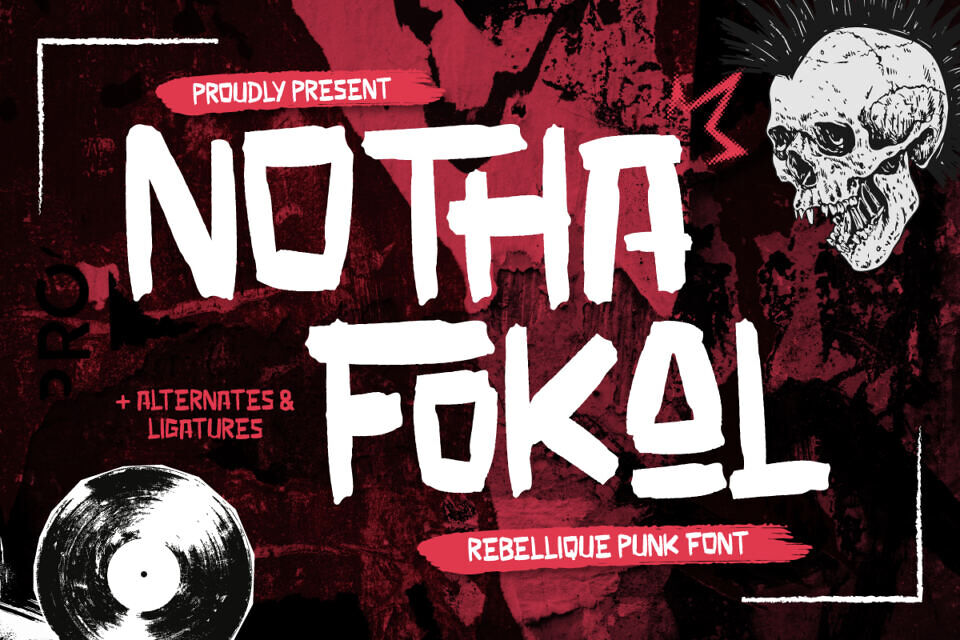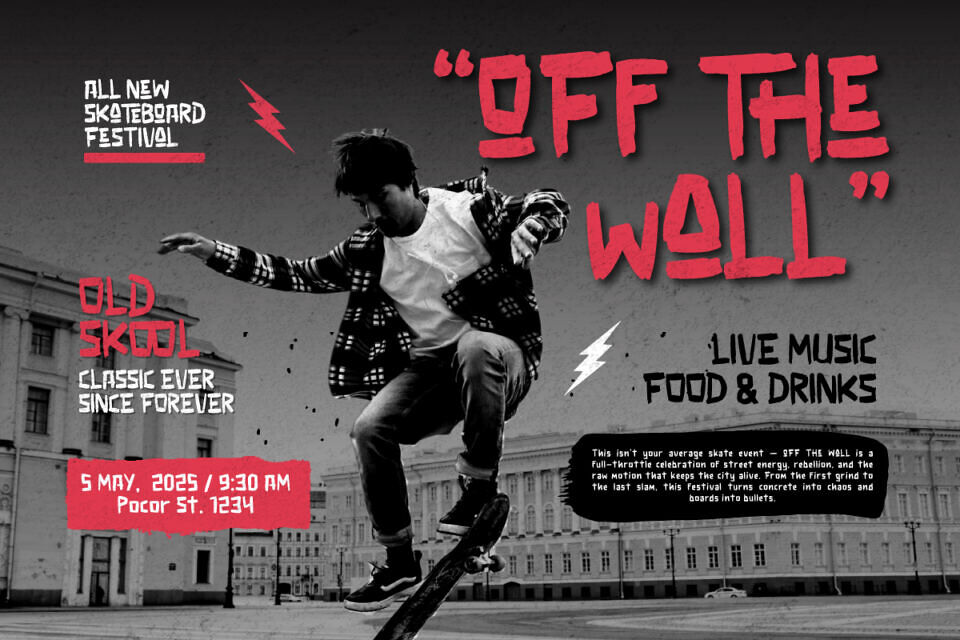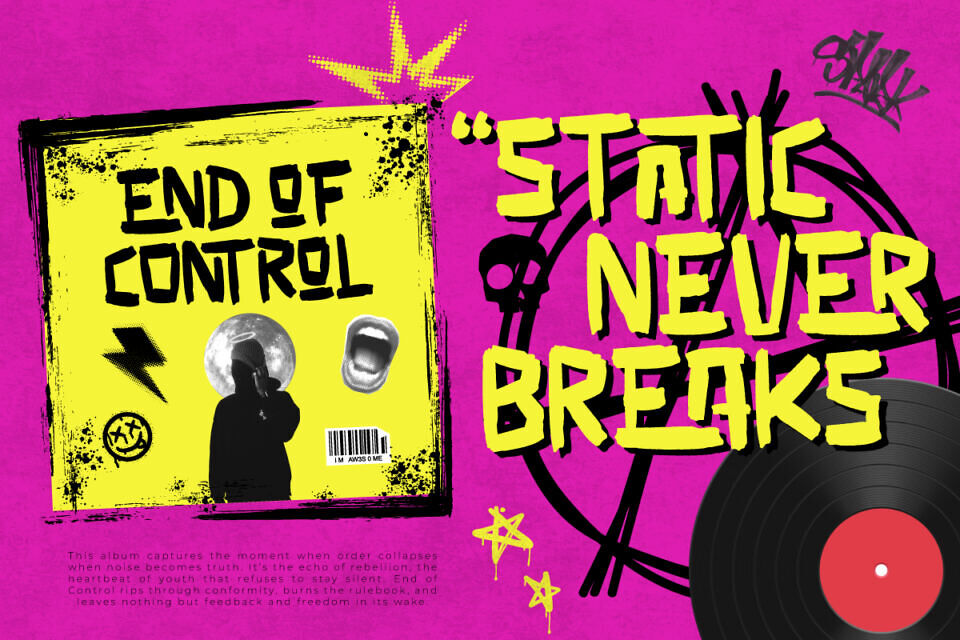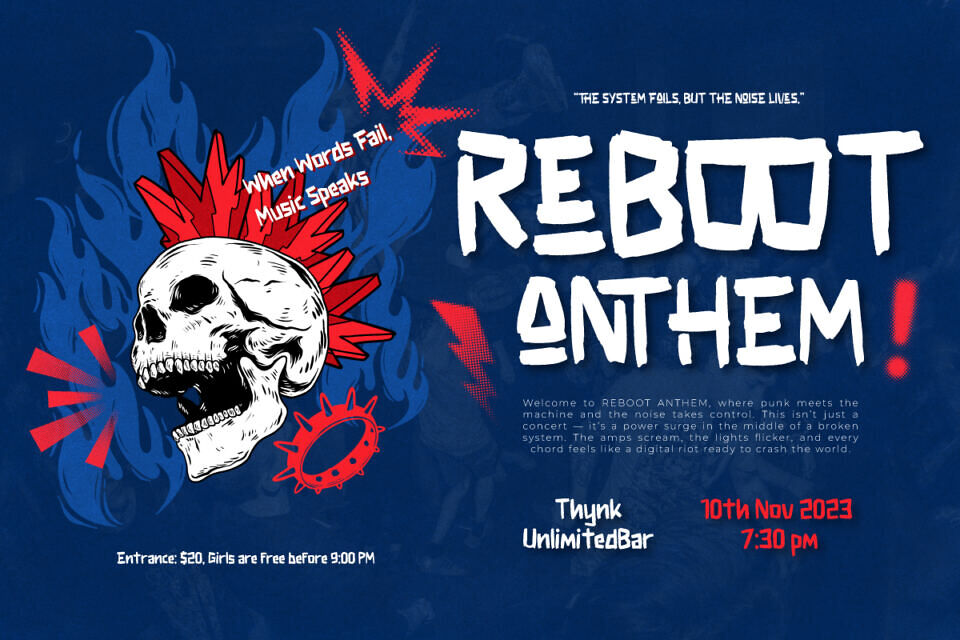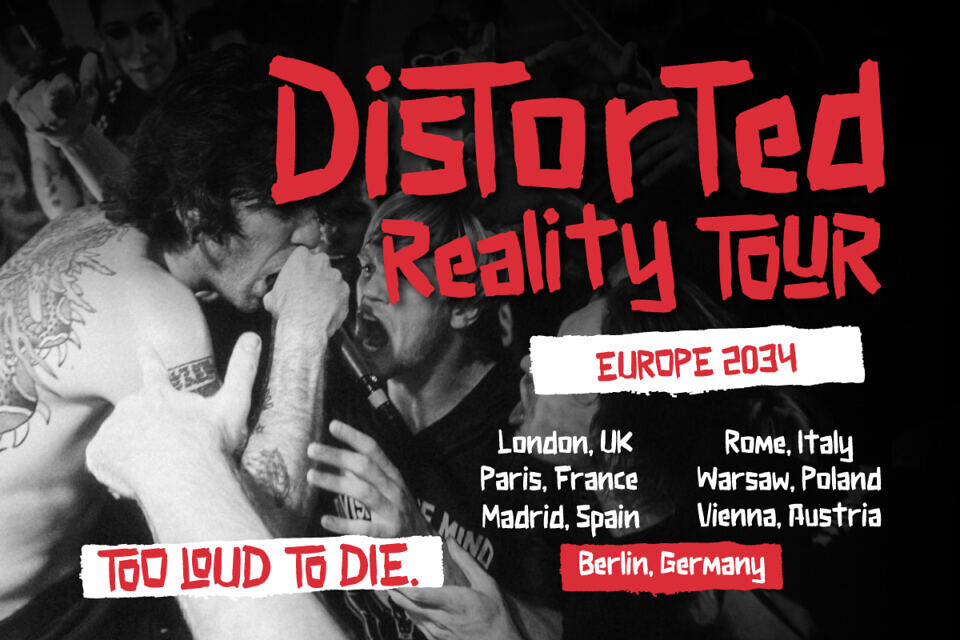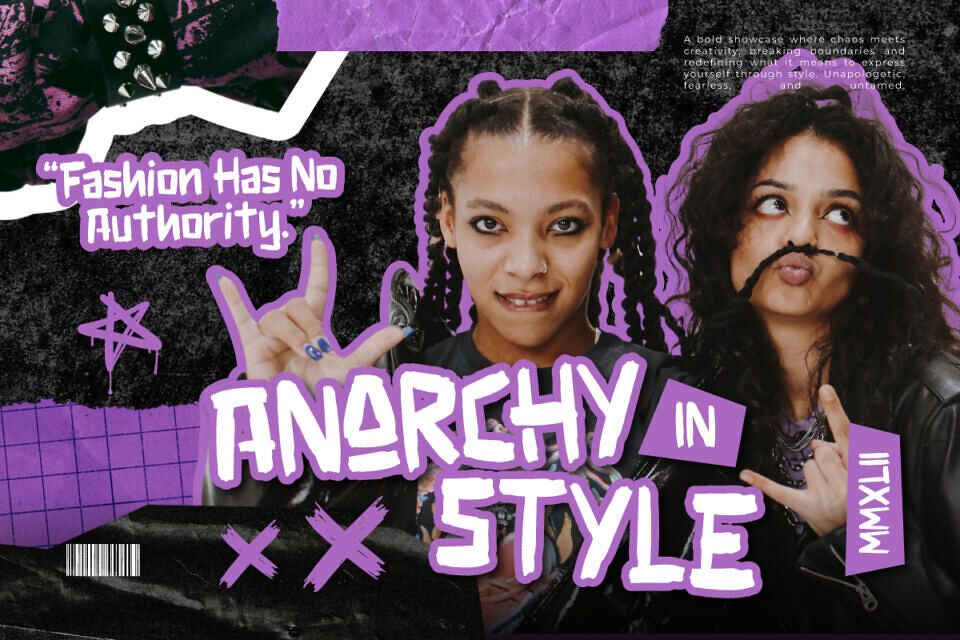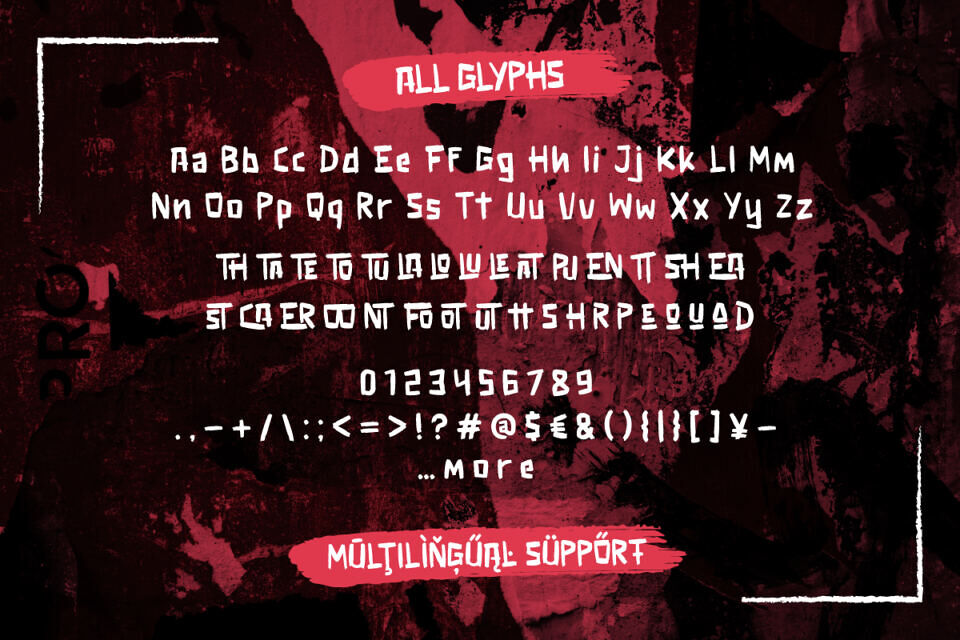
Notha Fokal is a rebellique Punk Font that embodies pure rebellion and raw energy. Inspired by underground culture, it channels the spirit of ripped posters, loud music, and gritty streets. With its bold brush strokes and irregular edges, this hand-drawn punk font delivers a powerful, untamed aesthetic.
Packed with unique alternates and ligatures, every letter feels alive—perfect for fearless designers seeking to break norms. Ideal for striking headlines, album covers, or edgy branding, Notha Fokal transforms words into bold statements, reviving punk’s essence of defiance, freedom, and unapologetic self-expression.